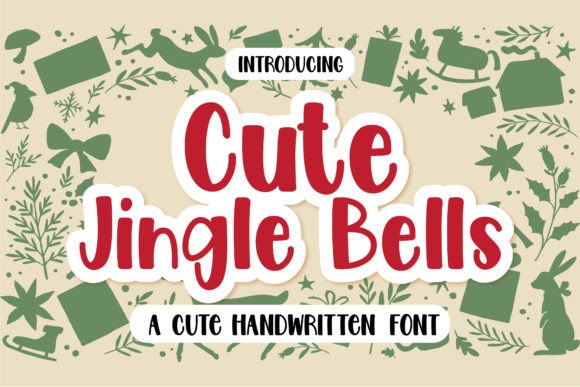
Journey into a world of whimsical charm and heart-melting cuteness with Cute Jingle Bells Font, the ultimate font companion for your creative projects. This captivating script font, meticulously crafted by GoodMoodType, exudes a playful spirit and a touch of holiday cheer that will transform your designs into magical masterpieces.
Cute Jingle Bells is a versatile font that effortlessly adapts to a diverse range of design styles, from whimsical invitations to enchanting greeting cards and eye-catching social media posts. Its natural and unique style adds a touch of personality and charm to any project, evoking a sense of wonder and delight that captures the hearts of your audience.
Step into a winter wonderland of creativity, where Cute Jingle Bells dances across your screen like snowflakes on a gentle breeze. Let your imagination soar as you explore its endless variations, creating designs that radiate warmth, joy, and a touch of festive enchantment. Whether you're designing a cozy sweater with intricate patterns or crafting heartwarming holiday messages, this font will elevate your creations to new heights of visual appeal.
With Cute Jingle Bells at your fingertips, you'll discover a font that's more than just a collection of characters—it's a gateway to a world of creativity and self-expression. Let the magic of this font infuse your designs with a festive charm that will capture hearts and spread joy wherever it goes. Dive into the wonderful world of Cute Jingle Bells today and unlock the true potential of your artistic vision!